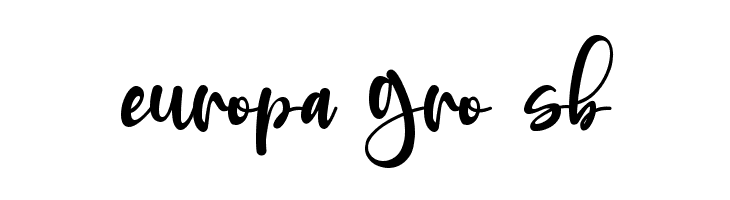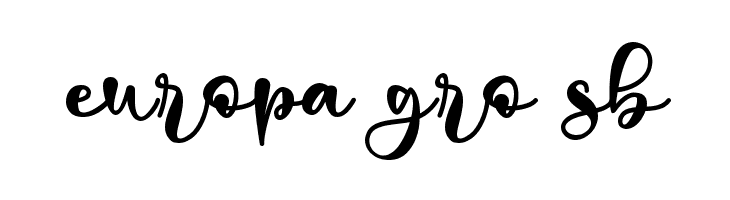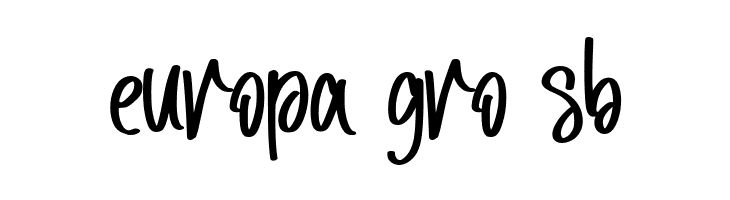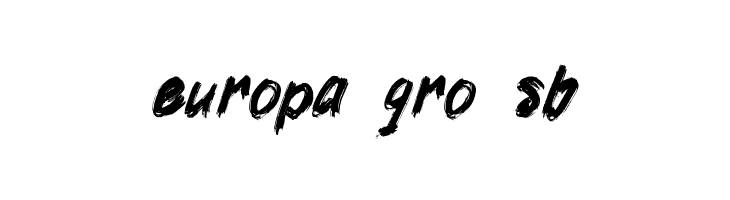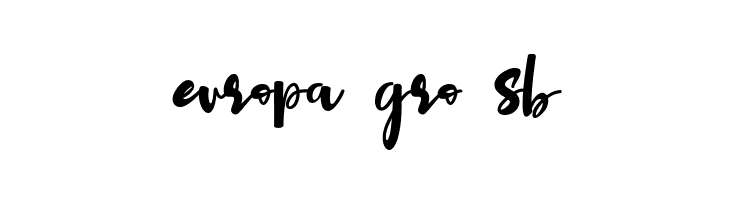
A playful, hand-drawn font with bold, rounded characters.
An elegant cursive font with fluid, sophisticated strokes.
An elegant script font with flowing, cursive letters and intricate swashes.
An elegant, flowing script font with intricate uppercase and smooth lowercase letters.
A dynamic, cursive handwritten font with fluid and expressive letterforms.
A bold, italic font with smooth, rounded characters and a dynamic slant.
A bold, rounded font with a playful and friendly style.
A playful, rounded font with smooth curves and a friendly appearance.
A playful, handwritten-style italic font with medium contrast and good legibility.
A playful and elegant cursive font with bold, flowing strokes.
A bold, playful font with a hand-drawn, textured style.
A playful, bold font with a hand-drawn, whimsical style.
A playful, bold, and whimsical font with a hand-drawn appearance.
A bold, playful font with rounded edges and a whimsical style.
A bold, playful font with rounded, cartoonish characters.
A bold, playful handwritten font with rounded characters.
A bold, decorative font with dynamic curves and sharp edges.
A stylish, elegant handwritten font with fluid, continuous strokes.
Handwritten monoline script with a festive feel.
Decorative serif font with high contrast and festive, whimsical style.
A decorative, high-contrast script with whimsical, hand-drawn qualities.
Ornate, high-contrast script with elegant flourishes.
Ornate calligraphic script with dramatic swashes and high contrast.
Expressive, bold script with high contrast and decorative flourishes.